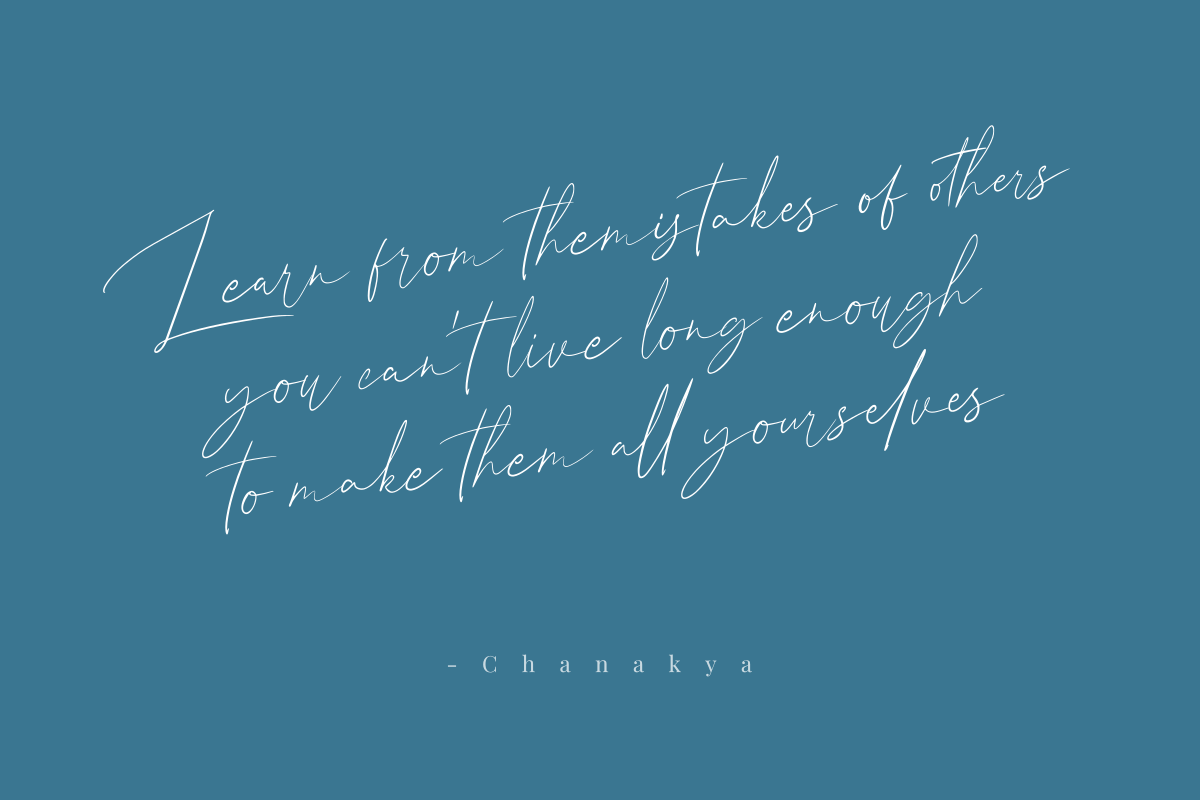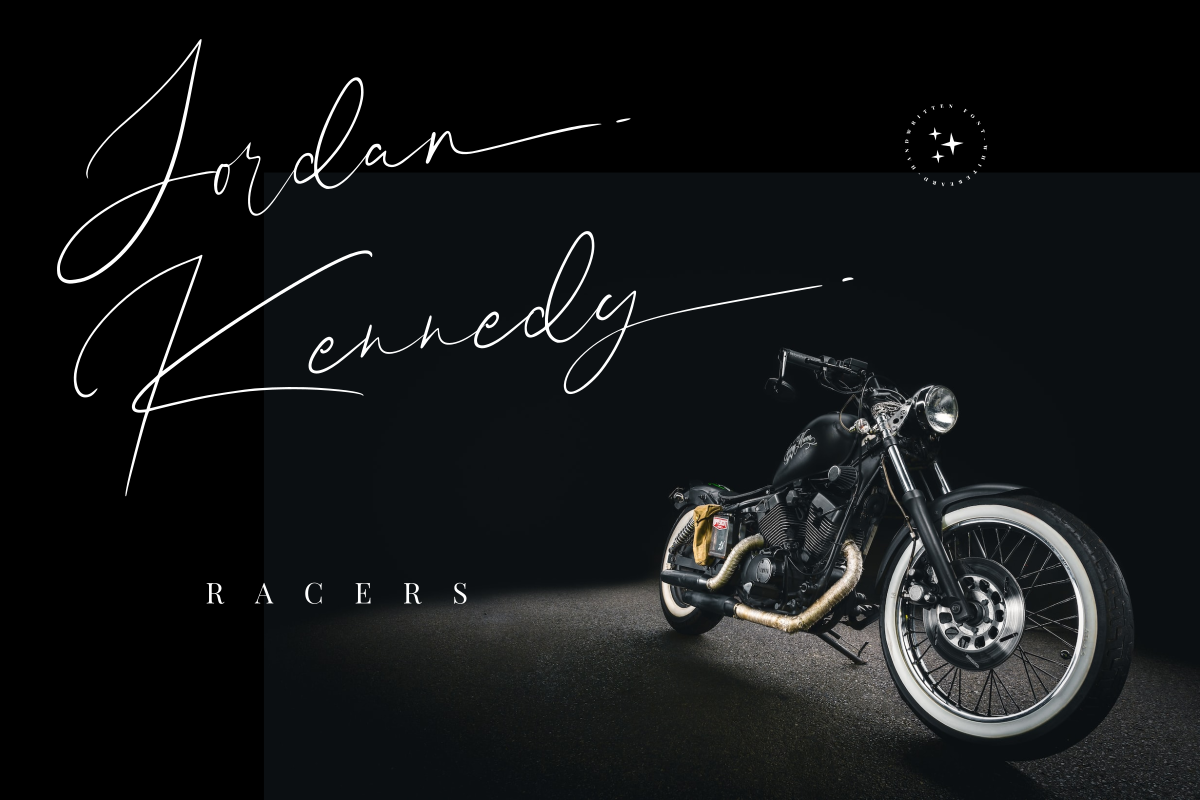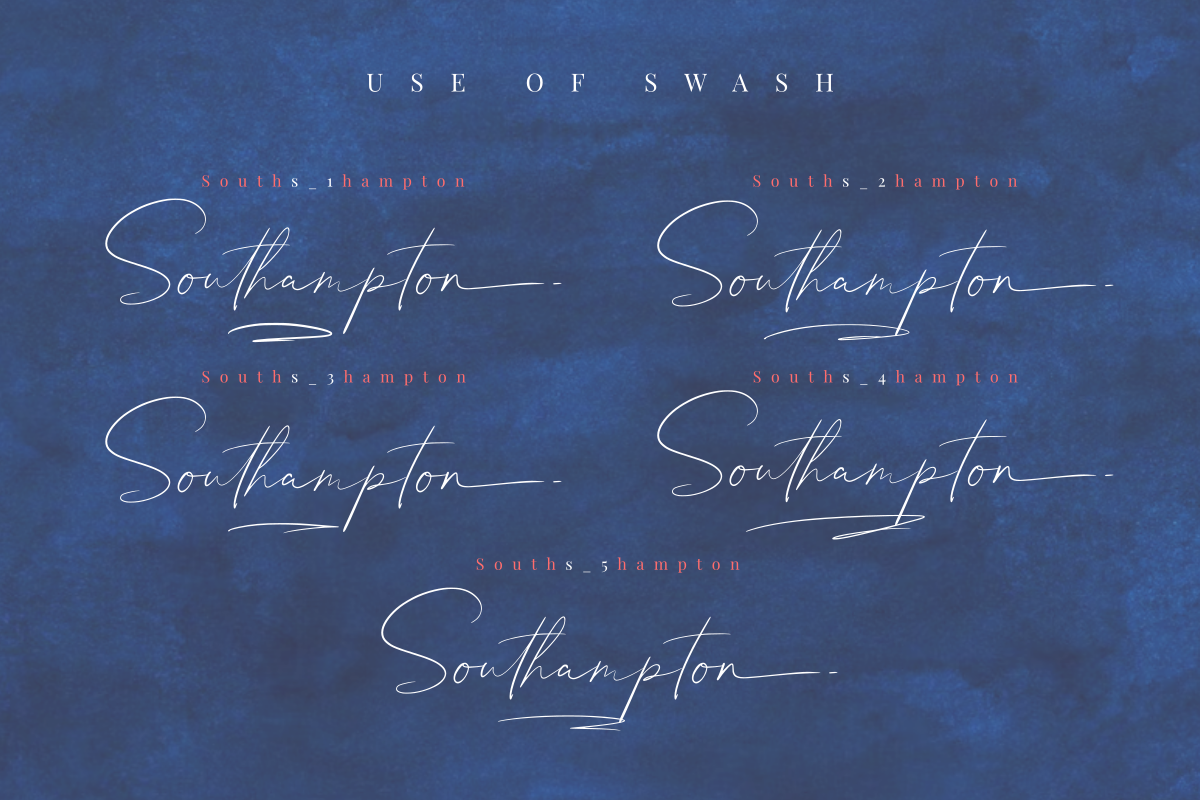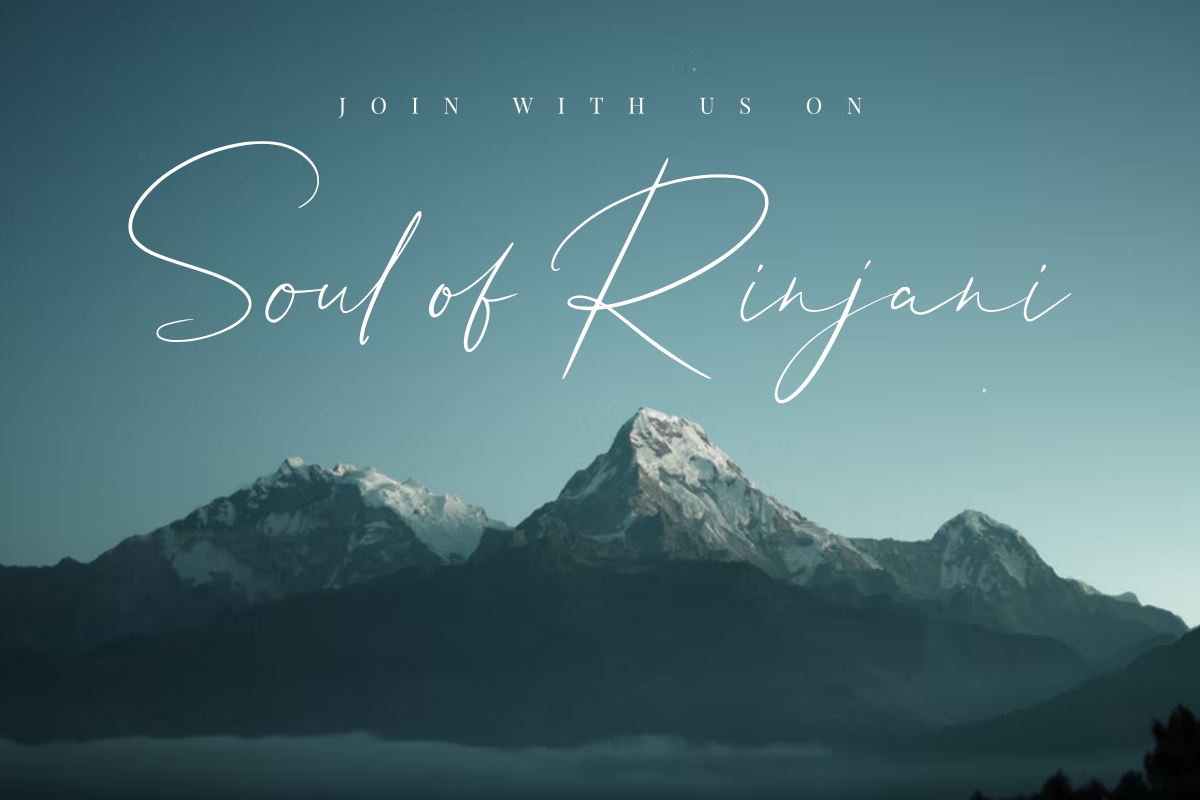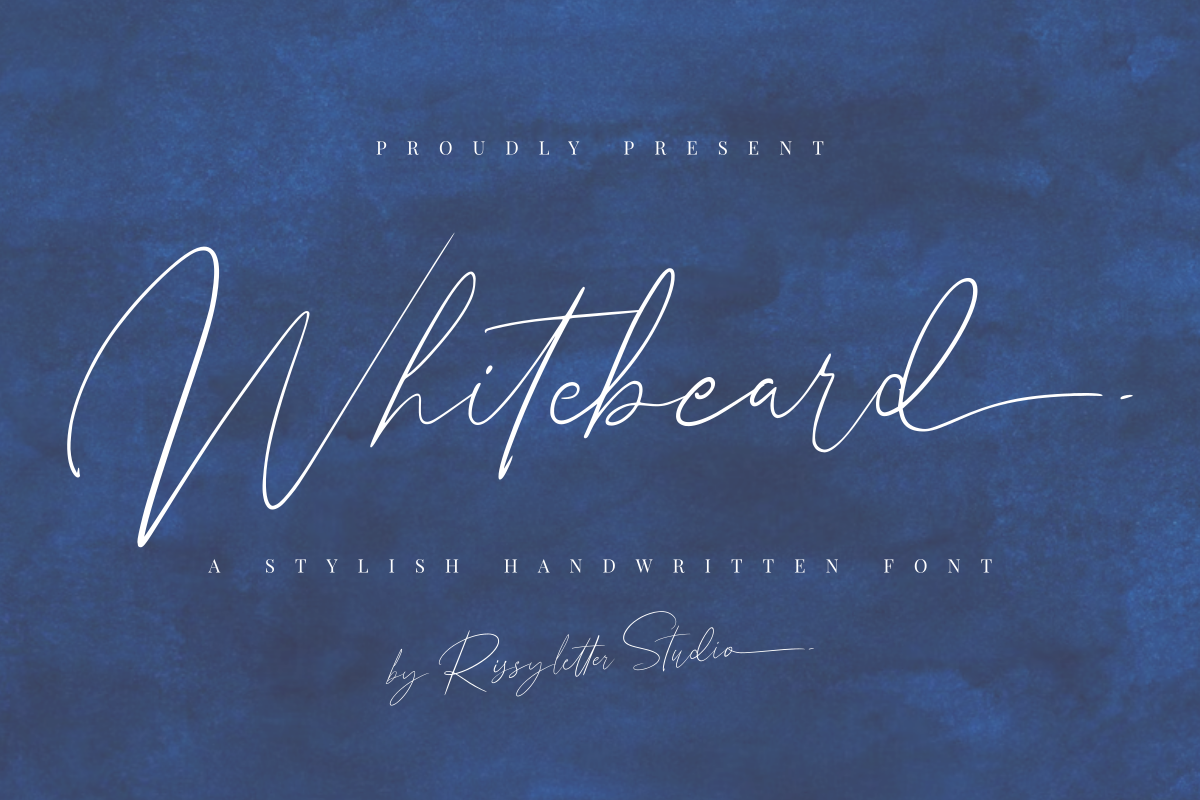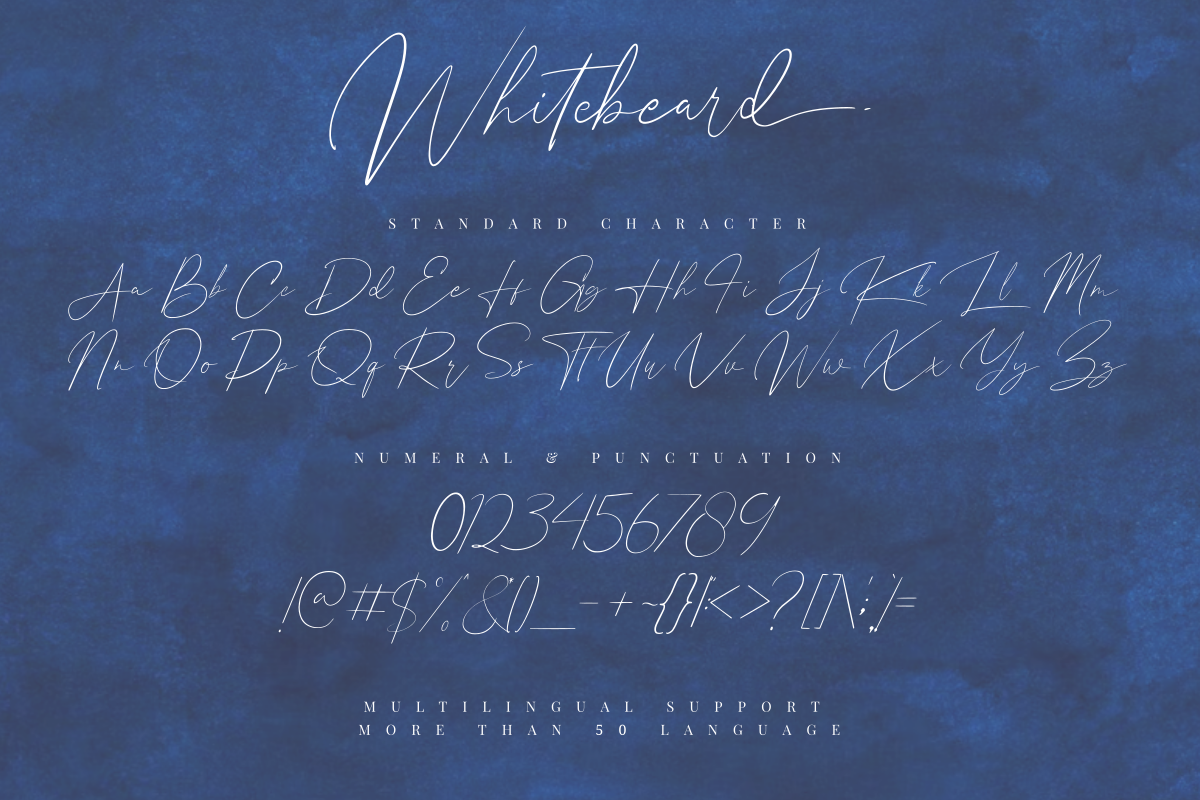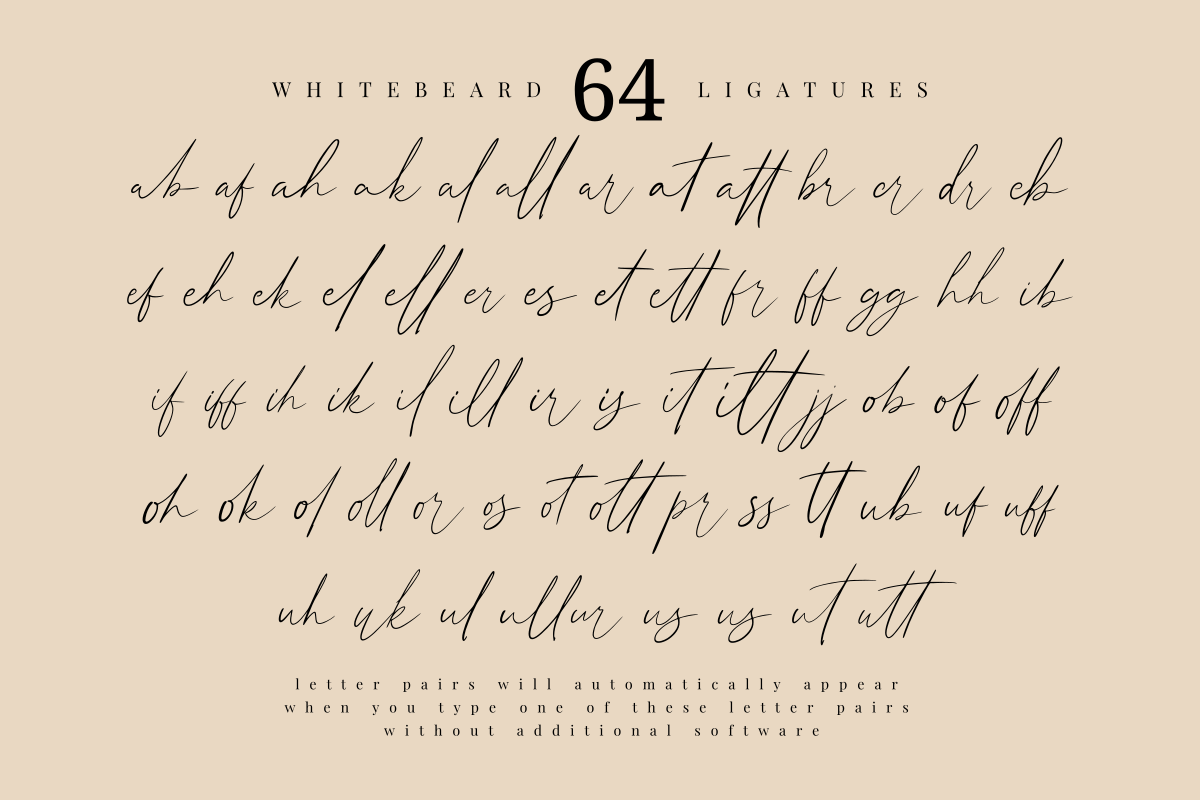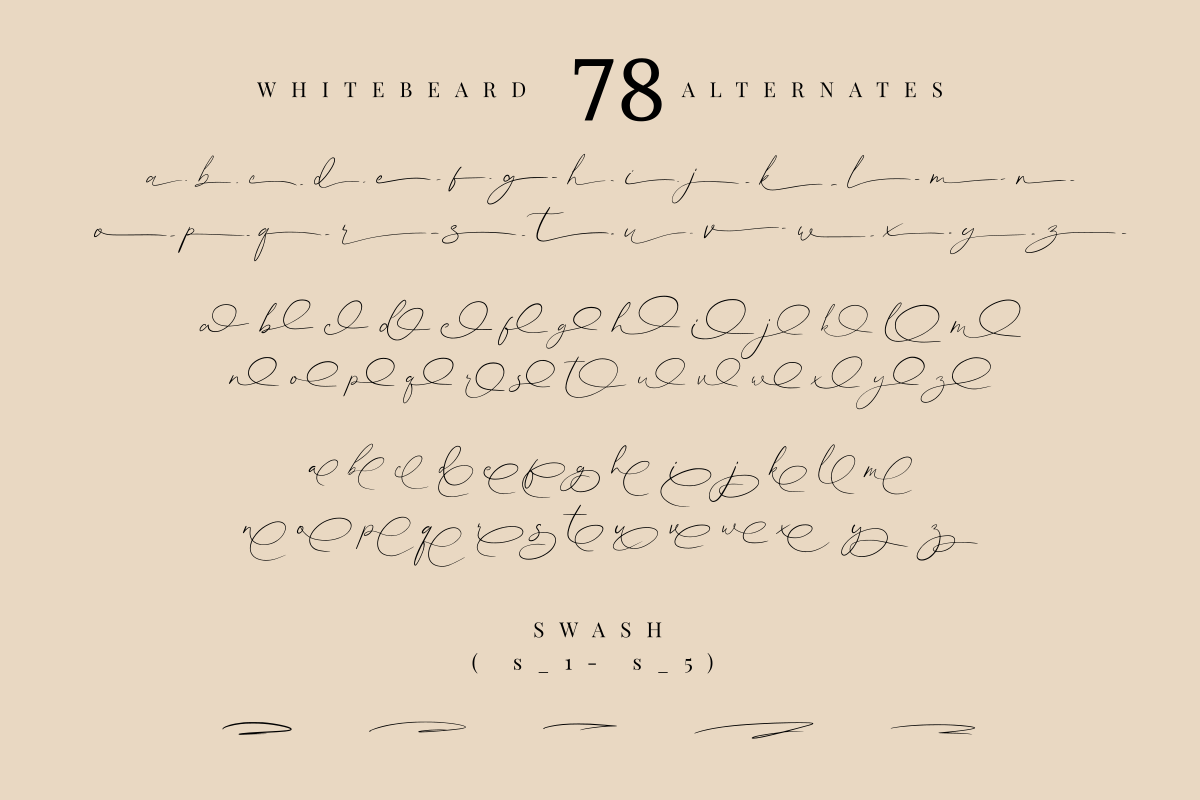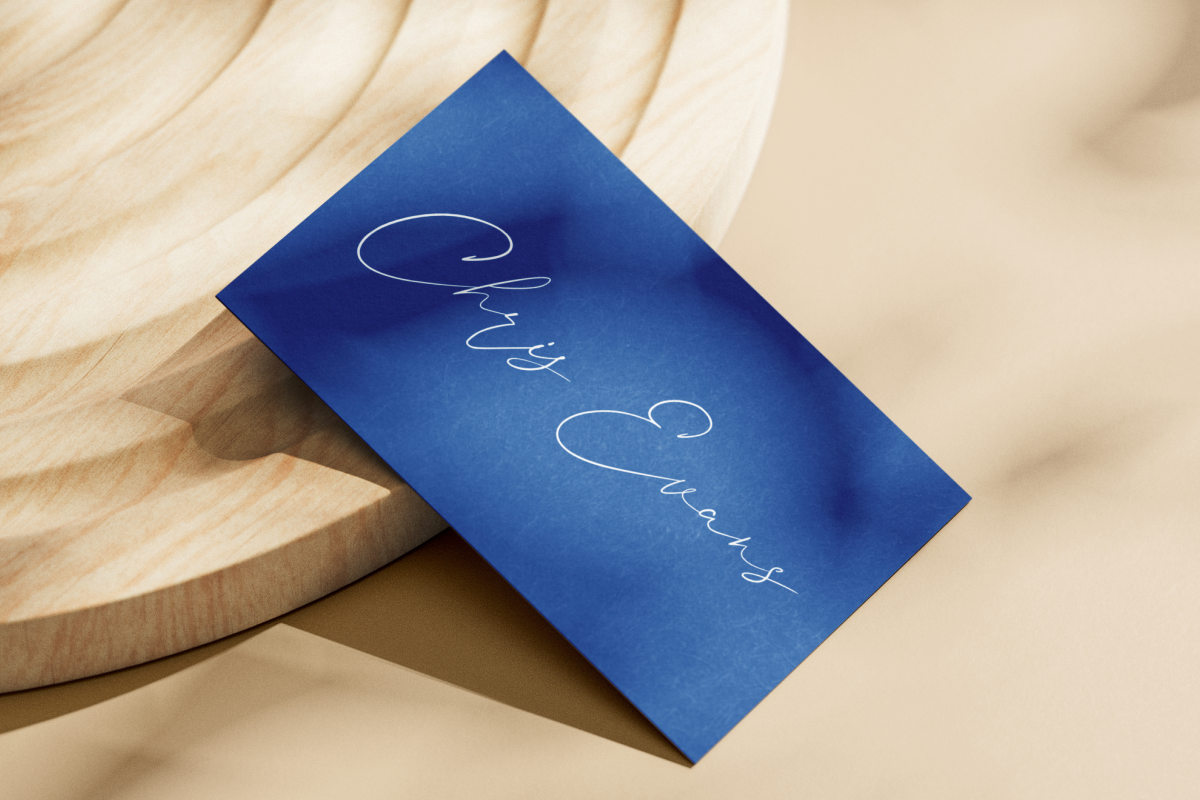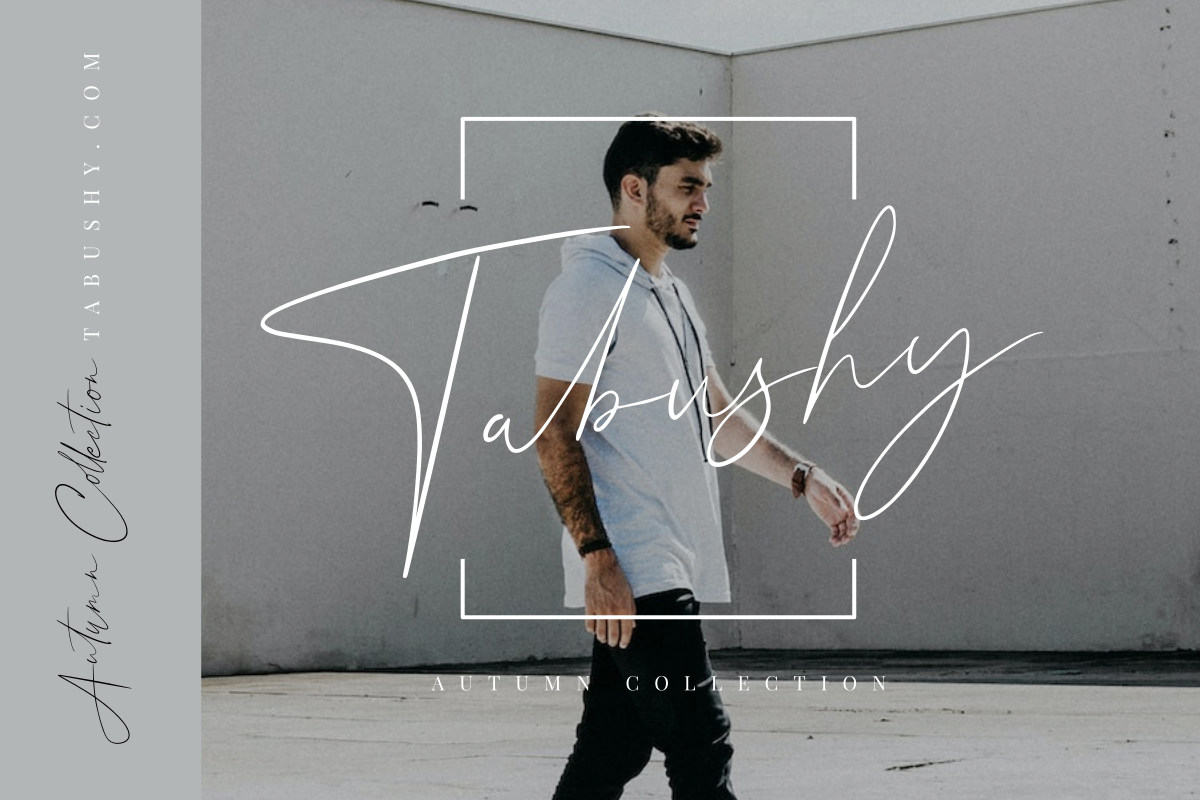
Whitebeard | Handwritten font
Whitebeard Font is a font created for those of you who are looking for fonts for wedding invitations, photographers, signatures, modern websites, branding, etc. support for 50+ languages, This font will look awesome and amazing in many ways to your latest project.
- More than 360 of glyphs (include Uppercase, Lowercase, Numerals & Punctuations, Stylistic,Ligatures & Swash)
- multilingual support